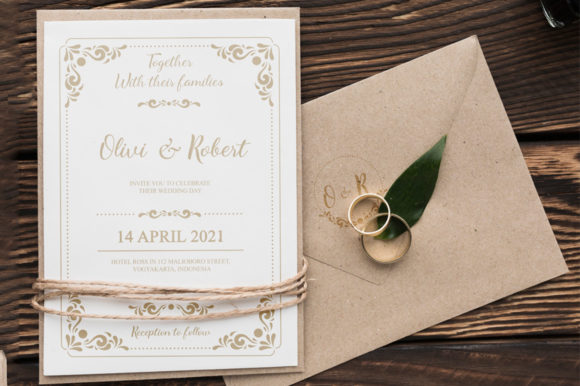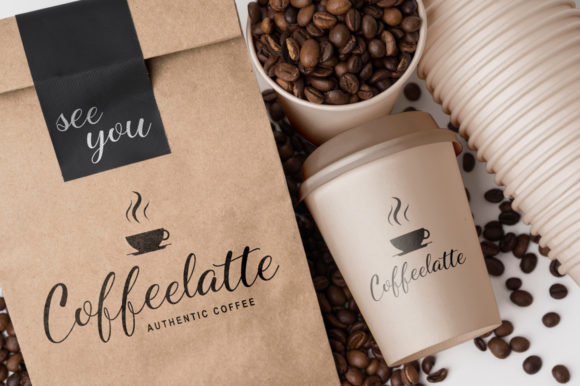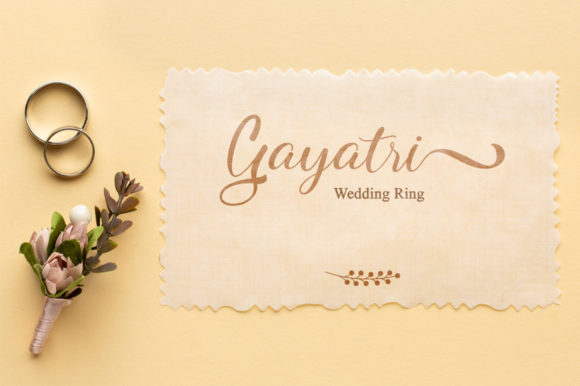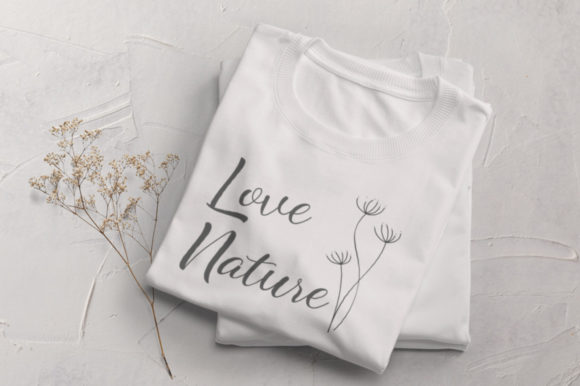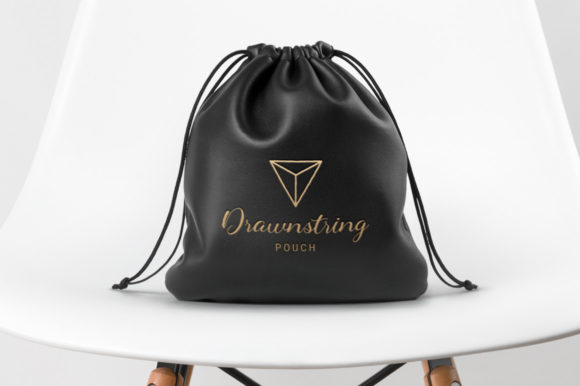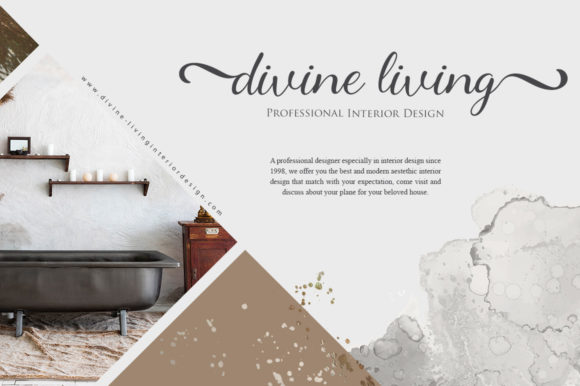
The Perfect Brushstroke: Unlocking the Magic of the Alyaneta Font
Have you ever been working on a design project, pouring your heart and soul into it, and then suddenly, you stumble upon the perfect font that brings everything together? For designers, that ‘aha’ moment is like finding a treasure trove of inspiration. And that’s exactly what happens when you discover the enchanting Alyaneta Font.
This romantic and sweet calligraphy typeface is more than just a pretty face – it’s a game-changer for any design project that needs a luxury touch. With characters that dance along the baseline, Alyaneta Font adds a level of sophistication and elegance that’s hard to resist. Plus, its PUA encoding makes it easy to access all the amazing glyphs and ligatures, giving you endless possibilities to experiment and create.
Alyaneta Font Key Features
- Font Family: Alyaneta Font is a unique, modern script font designed for various applications, including branding, advertising, and editorial content.
- Character Set: The font includes a wide range of characters, including uppercase and lowercase letters, numerals, punctuation marks, and special characters.
- Unique Characteristics: Alyaneta Font features a distinctive, flowing script design with a mix of cursive and handwritten elements, making it perfect for creating eye-catching headings and titles.
Alyaneta Font Review
I’ve had the chance to play around with the Alyaneta font, and I’m excited to share my thoughts on it.
- ✨ Elegant Script Style: The Alyaneta font features a beautiful, elegant script style that’s perfect for adding a touch of sophistication to your designs.
- ✨ Versatility: This font is incredibly versatile and can be used for a wide range of applications, from invitations and greeting cards to logos and branding materials.
- ✨ High-Quality Rendition: The font’s high-quality rendition ensures that it looks great on both digital and print materials.
- ⚠️ Limited Character Set: The Alyaneta font has a relatively limited character set, which might make it less suitable for complex texts or multi-language designs.
- ⚠️ Not Ideal for Body Text: While the font is great for headings and titles, it’s not ideal for body text due to its cursive nature, which can make it difficult to read in large quantities.
The Alyaneta font is a beautiful, elegant script style that’s perfect for adding a touch of sophistication to your designs. While it has some limitations, I believe it’s a great choice for designers who want to add a bit of flair to their work. Just be mindful of its limitations and use it in the right context.
Getting the Most Out of Alyaneta Font
Here are some tips for getting the most out of Alyaneta Font:
- Use Alyaneta Font in combination with other fonts to create a unique
Alternatives to Alyaneta Font
Montserrat is a sans-serif font designed by Julieta Ulanovsky. It’s ideal for digital interfaces, logos, and body text due to its clean and modern design. Montserrat has a similar geometric feel to Alyaneta Font, but with a more rounded appearance. It’s suitable for both on-screen and print materials.
Open Sans is a highly legible sans-serif font designed by Steve Matteson. It’s widely used in digital interfaces and is suitable for body text due to its clean and simple design. Open Sans has a more rounded appearance compared to Alyaneta Font and is more suitable for on-screen materials.